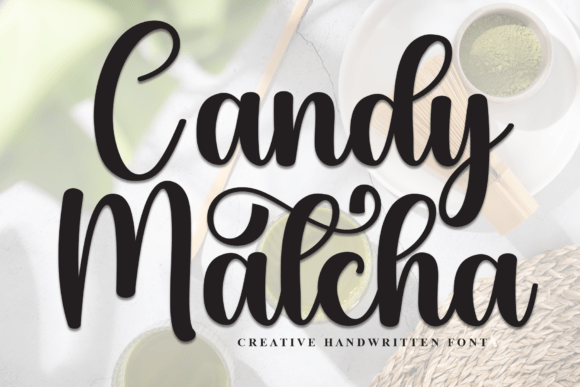
Discovering the Sweet Charm of Handwritten Fonts Have you ever stumbled upon a font that instantly sparks joy and makes you want to create something special? That’s exactly what happened when we discovered the Candy Matcha Font. This delightful handwritten display font is a masterclass in warmth and friendliness, making it the perfect companion for…